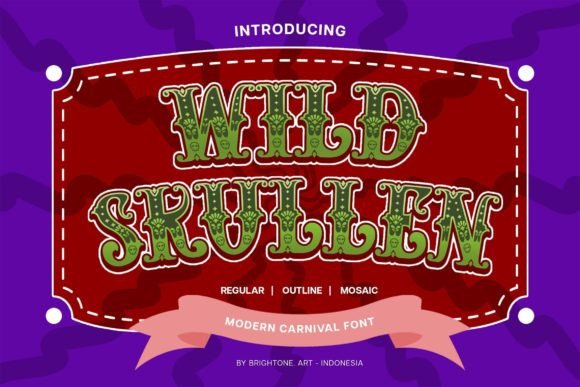
Behold, Wild Skullen, the daring decorative serif font that exudes carnival flair and captivating uniqueness, created by the visionary minds at Brightonexart. This font stands tall with its bold body, leaving a lasting impression that resonates with strength and character.
Wild Skullen's vintage charm and old-school aesthetics transport you to an era of nostalgia, evoking memories of classic carnivals and timeless designs. Yet, it's not confined to the past; it effortlessly blends into modern designs, adding a touch of retro elegance to magazine headlines and advertisement banners.
This font possesses an undeniable presence, commanding attention with its assertive strokes that dance across the page like a vibrant melody. Its carefully crafted curves and swashes infuse your designs with a captivating rhythm, making them impossible to ignore.
Whether you're a designer seeking a font that speaks volumes or a creative spirit yearning for a touch of vintage charm, Wild Skullen is your muse. Its versatility extends beyond vintage and old-school themes, seamlessly adapting to modern aesthetics with a timeless grace that never fails to impress.
Embrace the allure of Wild Skullen and watch your designs transform into captivating masterpieces. Its bold, decorative nature is a breath of fresh air in a world of ordinary fonts, setting your projects apart from the mundane and propelling them into the realm of the extraordinary.